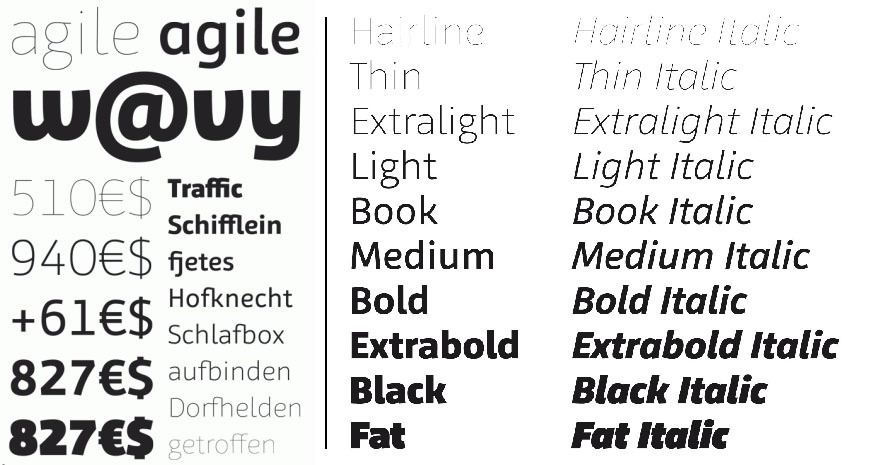
Agile Font
This dynamic typeface is perfect for tech startups, software companies, project management tools, innovation consultants, digital agencies, lean methodology brands, productivity apps, modern corporations, and fast-paced business applications.
What makes this font exciting is its adaptive flexibility combined with technological efficiency, offering designers a responsive typeface that captures the essence of agile methodology while delivering streamlined performance and contemporary business sophistication.
The Agile font family includes light, regular, medium, semibold, bold, and black variations, providing complete business design solutions for creating efficient modern visual identities.
Agile Font features carefully engineered responsive styling with authentic technological character that conveys genuine business innovation. Each character has been designed for maximum readability and optimal performance across different digital platforms, with clean proportions and systematic elements that enhance the efficient aesthetic. The font's technological qualities make it particularly effective for software companies and digital applications.
Professional designers choose Agile Font for projects requiring authentic technological credibility and business atmosphere. Its innovative heritage makes it exceptionally well-suited for tech companies, consulting firms, and productivity-focused organizations. The font's versatile systematic variations allow designers to control the technological intensity, from subtle business elegance to full innovation authority.
The complete Agile Font package offers extensive technological ornaments and business decorative elements that enhance the efficient aesthetic. Advanced systematic features allow designers to create complex technological effects with multiple methodology-inspired options. This comprehensive business toolkit ensures designers have everything needed to create authentic technological communications that celebrate the power of adaptive methodology and streamlined business efficiency.